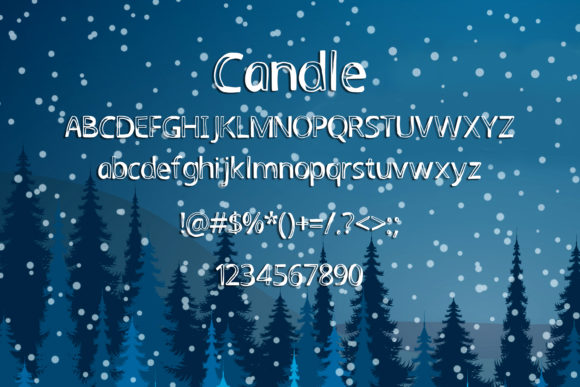
The Candle Font: A Bold and Trendy Display Font for Creative Projects
An Honest Review of Candle Font
What I Love About Candle Font
- ✨ Bold and eye-catching: Candle font is perfect for making a statement with your designs.
- ✅ Highly versatile: Whether you’re working on a digital project, crafting, or making greeting cards, Candle font is an excellent choice.
- 💡 Easy to read: Despite its boldness, Candle font is surprisingly easy to read, even in smaller sizes.
While Candle font is an excellent choice for many projects, there are a few things to keep in mind. For example:
- 🤔 Limited use in body text: While Candle font is great for headings and titles, it may not be the best choice for longer blocks of body text.
- ⚠️ May not be suitable for very small sizes: Candle font can become a bit blurry or hard to read when scaled down to very small sizes.
The Story Behind Candle Font
Candle font was designed with the goal of creating a bold and eye-catching display font that’s perfect for a wide range of creative projects. The designer wanted to create a font that’s both trendy and timeless, with a unique personality that’s sure to make your designs stand out.
Q: What type of projects is Candle font best suited for?
A: Candle font is perfect for a wide range of creative projects, including digital designing, crafting, presentations, and making greeting cards.
Q: Is Candle font easy to read?
A: Yes, despite its boldness, Candle font is surprisingly easy to read, even in smaller sizes.